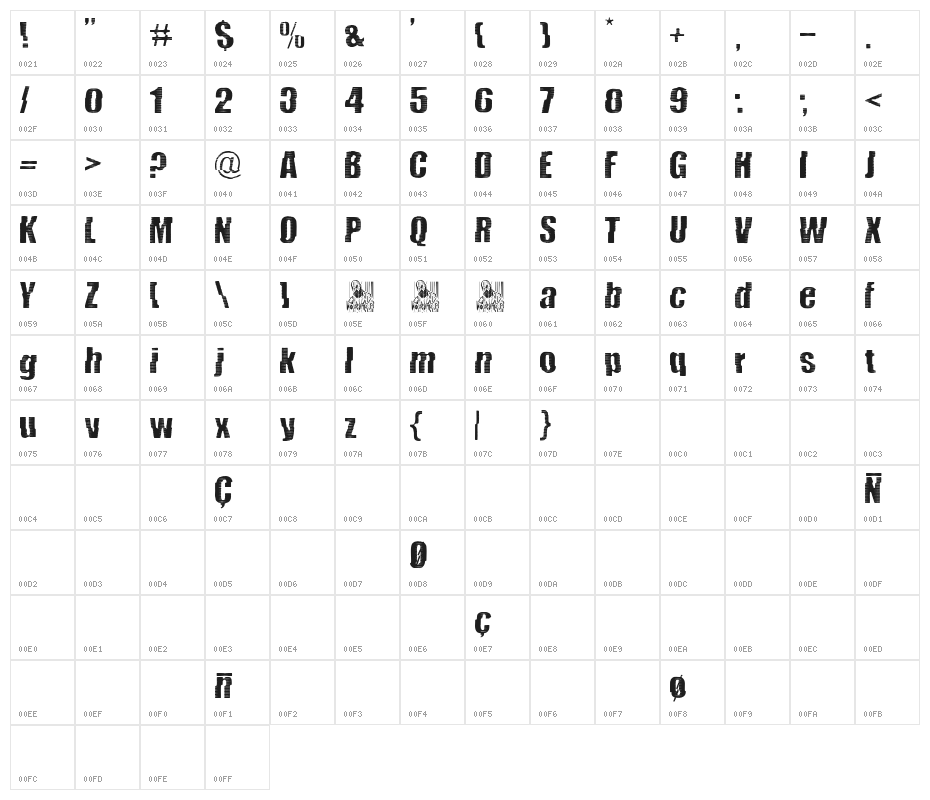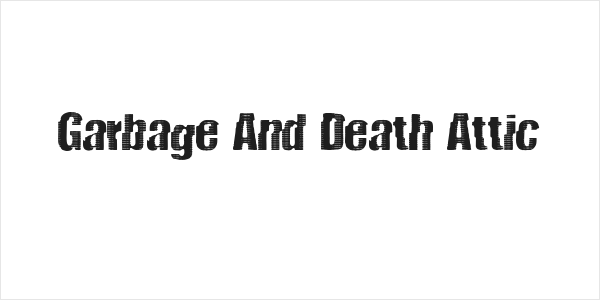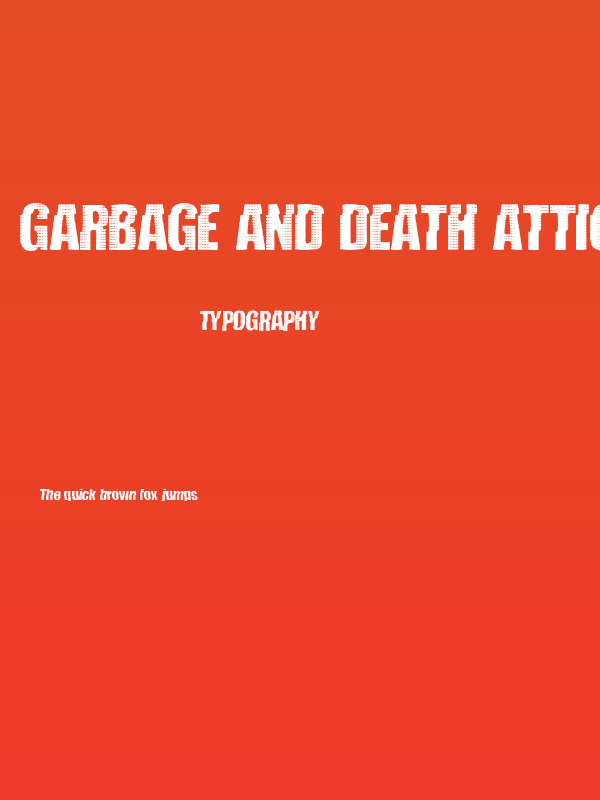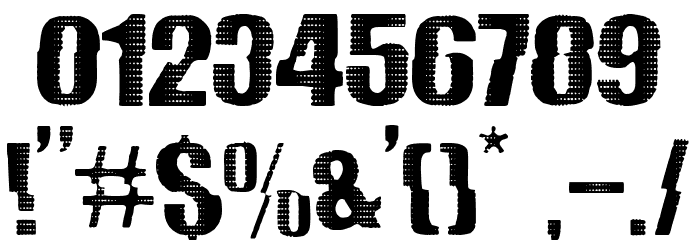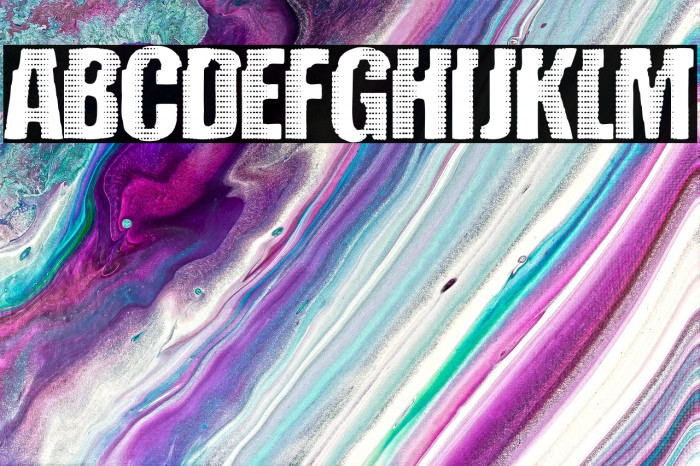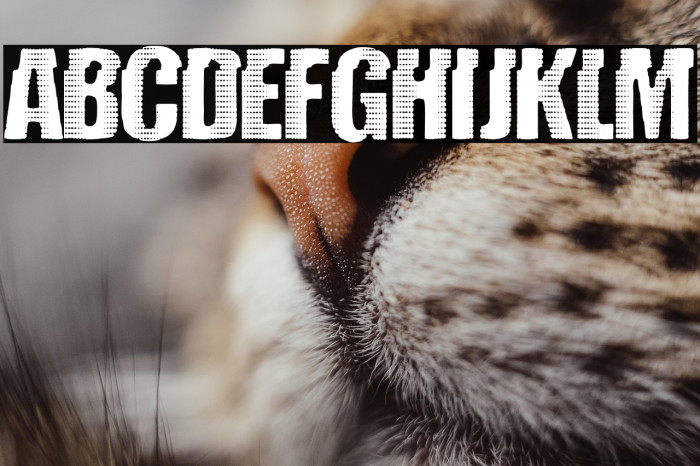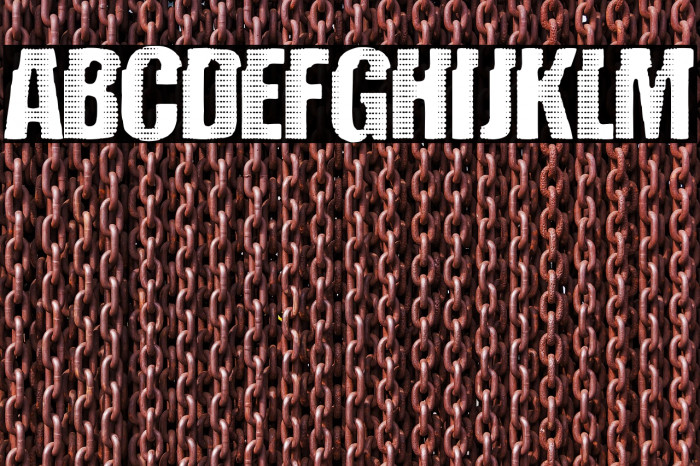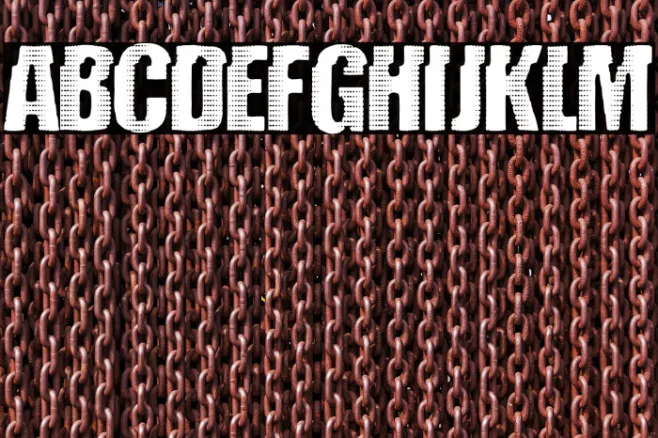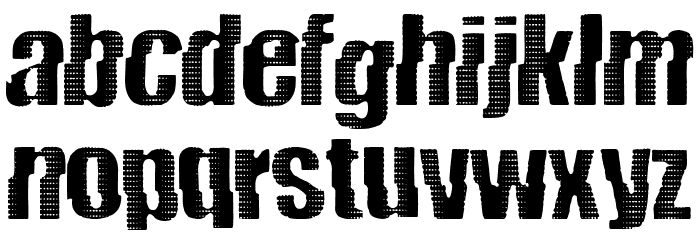
Garbage And Death Attic Font
| Kategorien | Messy |
| Gesamtstil | Industrial, Edgy |
| Vorgeschlagene Projekte | Ideal for album covers, posters, branding for edgy products, and any design needing a strong, rugged aesthetic. |